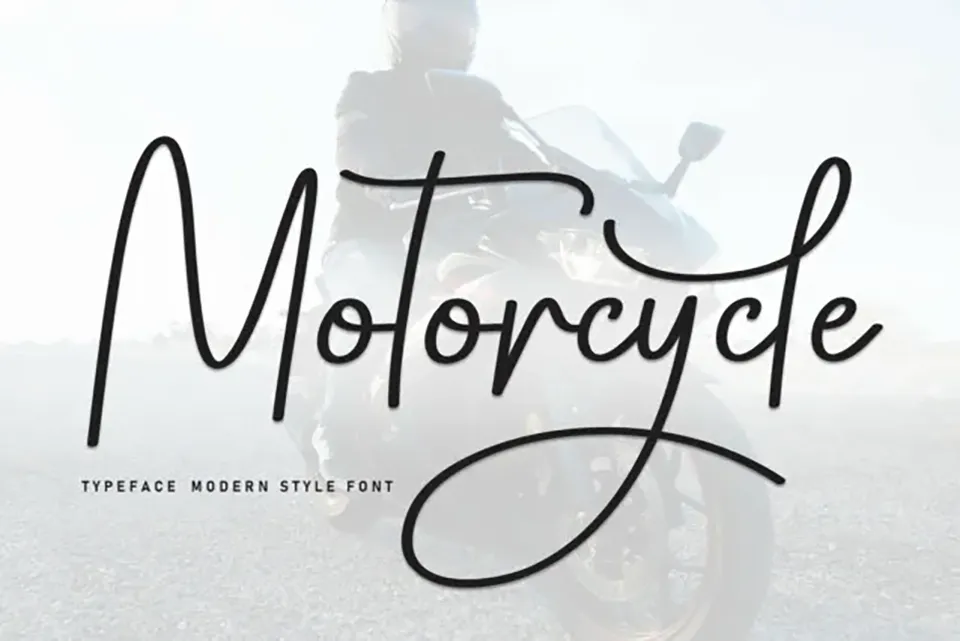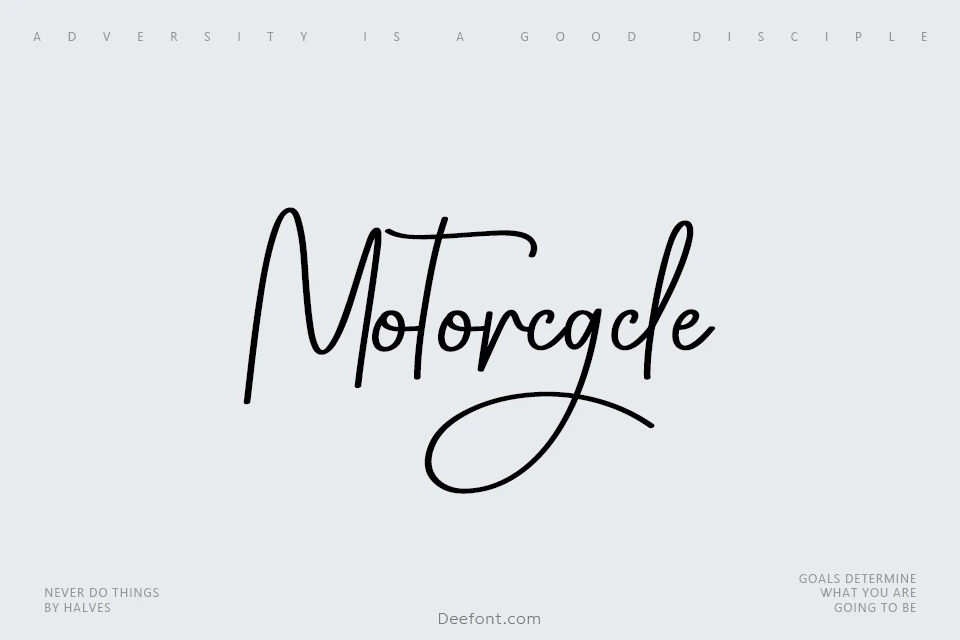
Motorcycle Font
Motorcycle Font is presented as a modern style typeface, specifically a flowing monoline script. This font captures the essence of elegant, contemporary handwriting with its smooth, consistently weighted strokes. Notable features include gracefully extended loops and swashes, lending it a dynamic and chic appearance. The letters connect seamlessly, enhancing the sense of fluidity and movement inherent in the script style. Motorcycle balances modern design with a personal, handwritten feel, making it ideal for branding, logos, stylish signatures, social media posts, invitations, and any project requiring a touch of sophisticated flair and effortless motion.